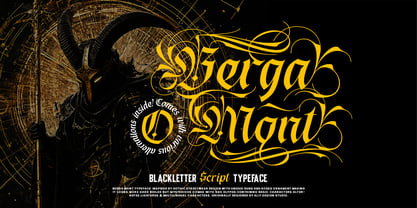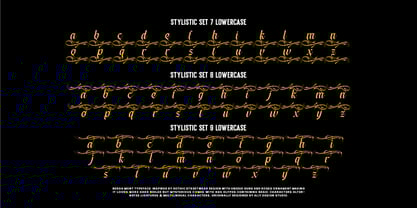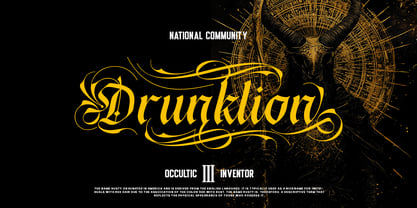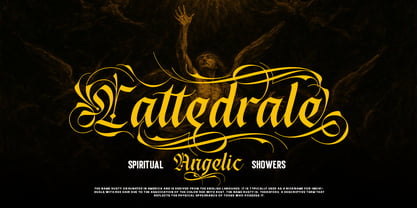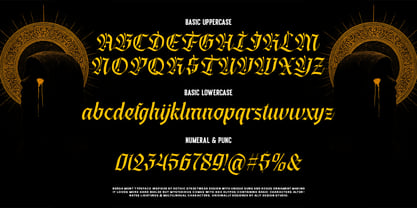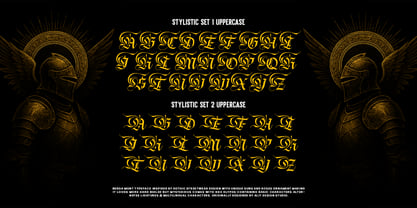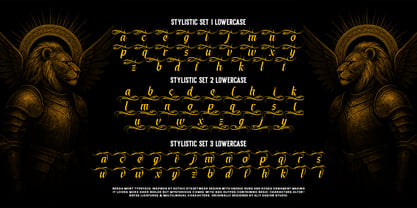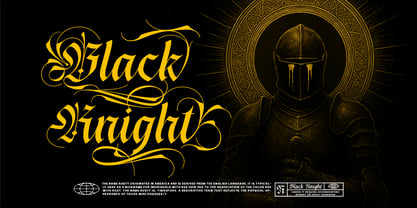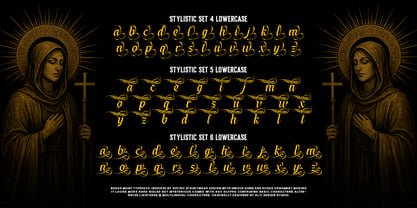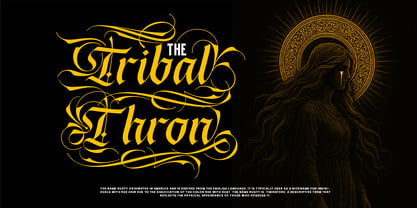
Berga Mont
by Alit Design
The Berga Mont Font Family was designed by Alit Suarnegara and published by Alit Design. Berga Mont contains 1 styles.
Berga Mont: A Masterpiece of Gothic Blackletter Unleash a new era of dark elegance with Berga Mont, a breathtaking blackletter script typeface that blends raw gothic energy with sophisticated, intricate ornamentation. This is not just a font; it's a complete design arsenal crafted for those who demand power and mystery in their typography. Inspired by the bold spirit of modern gothic streetwear and the timeless beauty of "guns and roses" motifs, Berga Mont is a feature-rich typeface designed by Alit Design Studio. Its sharp, angular letterforms are adorned with elaborate, flowing swashes that weave through your text, creating a dynamic and captivating visual rhythm. Whether you're branding a metal band, designing a fantasy book cover, or creating statement apparel, Berga Mont commands attention. A Massive Glyph Library: Take full control of your design with over 893 unique glyphs, offering limitless possibilities for customization. Extensive Stylistic Alternates: This is where Berga Mont truly shines. Define your look with a massive selection of alternate characters: Stylistic Sets 1-4 for Uppercase: From subtly stylized caps to full-blown, ornate statement letters. Stylistic Sets 1-3 for Lowercase: Transform your body text with unique ligatures, swashes, and alternate forms for nearly every letter. Intricate & Elegant Swashes: Dozens of built-in swashes and ornamental flourishes allow you to start, end, and connect words with a dramatic, custom-calligraphy feel. Full Character Set: Includes a complete set of Basic Uppercase, Basic Lowercase, Numerals, and essential Punctuation, all designed to harmonize perfectly. Multilingual Support: Communicate your dark and mysterious message to a global audience with comprehensive multilingual characters. Bonus Ligatures: A collection of unique ligatures adds an extra layer of style and connection to your text. Ideal For: Berga Mont is built for projects that need to make an unforgettable impact. It's the perfect choice for: Logos & Branding: (Streetwear, Tattoo Studios, Metal Bands) Apparel Design: (T-shirts, hoodies, and accessories) Book Covers: (Fantasy, Folklore, Dark Romance, Occult) Posters & Album Art: (Events, Concerts, Movie Titles) Headlines & Editorial: (Magazines, blogs) Embrace the darkness. Elevate your designs from simple text to a work of art. Get Berga Mont today.